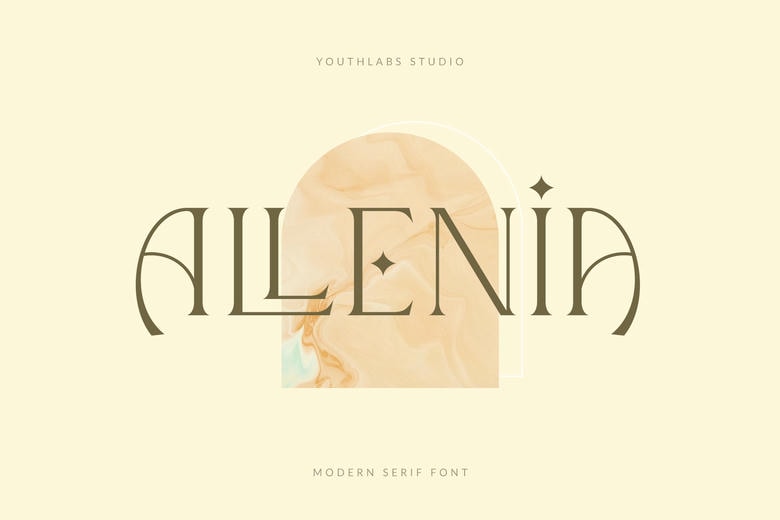
Allenia Font
Allenia is an elegant and stylish serif font. Its stylish alternates and ligatures make this font the perfect match for any project. Add it confidently to your favorite creations and let yourself be amazed by the outcome generated.
Allenia Serif Font